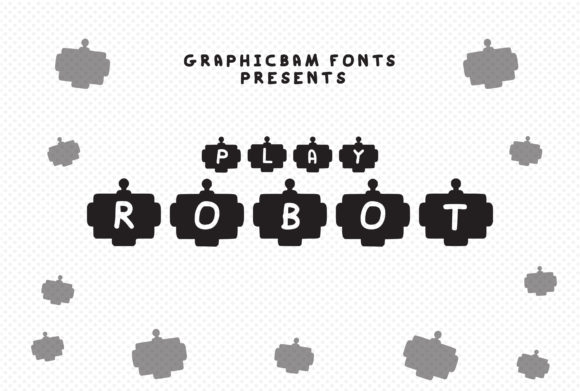
Step into the realm of futuristic typography with Play Robot, the decorative font that sparks creativity and captivates onlookers! This extraordinary creation from GraphicsBam Fonts breathes life into your designs, making your products stand out as beacons of innovation. Each letter exudes playfulness, inviting customers to explore the wonders of the digital frontier. Embrace the power of Play Robot and watch your online ventures soar to new heights!